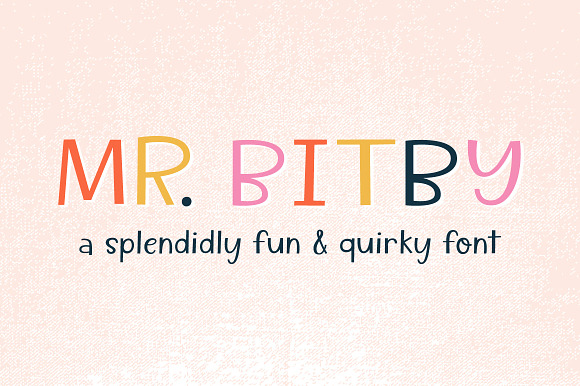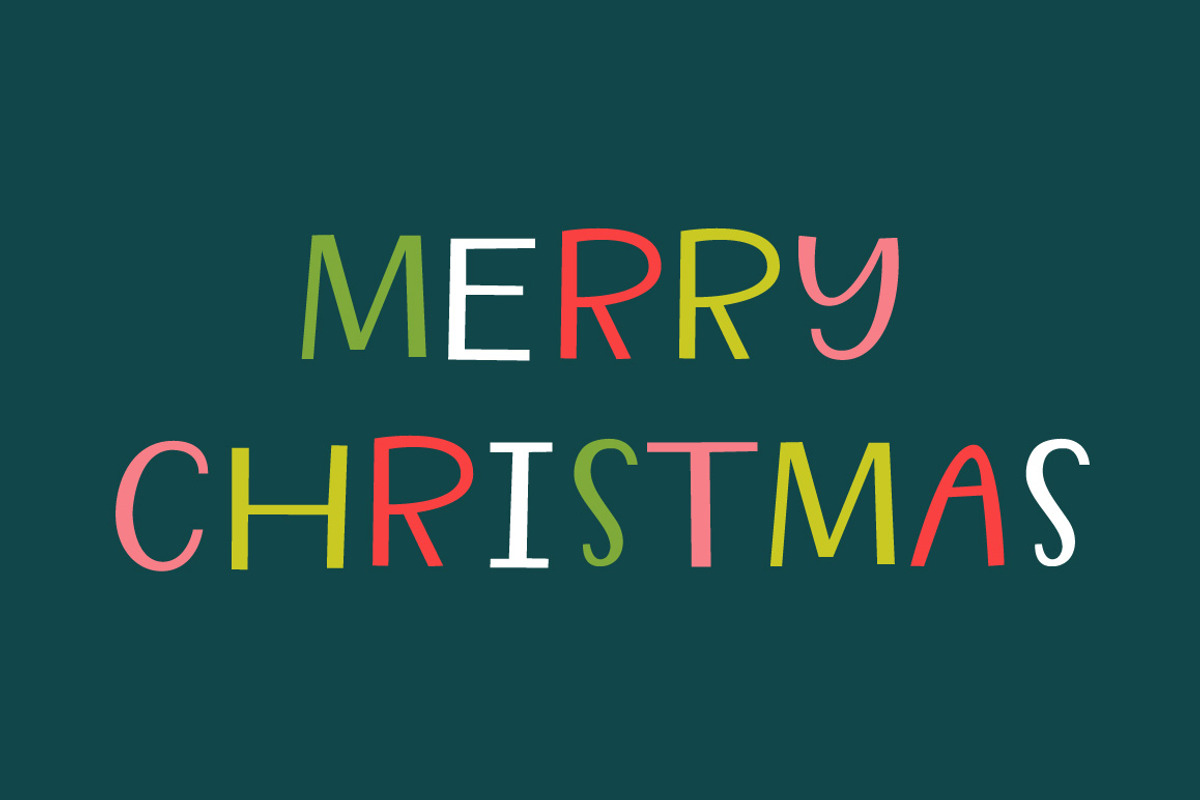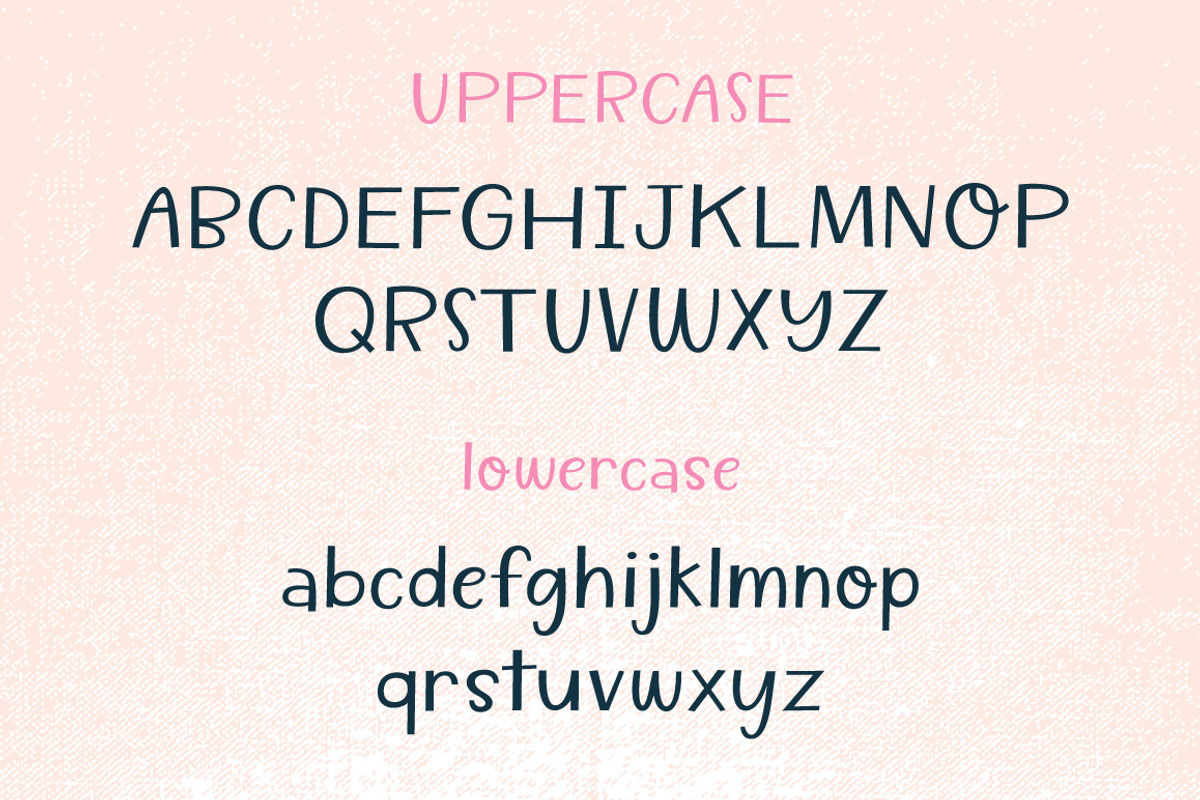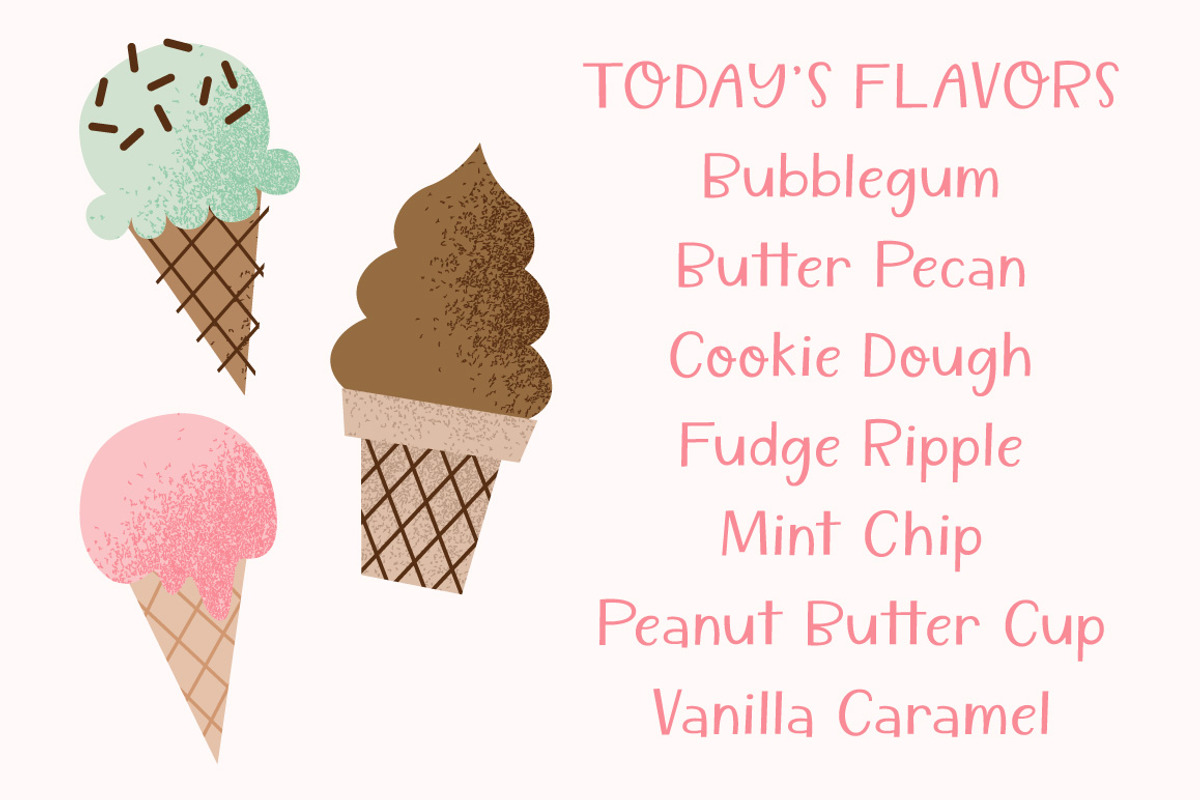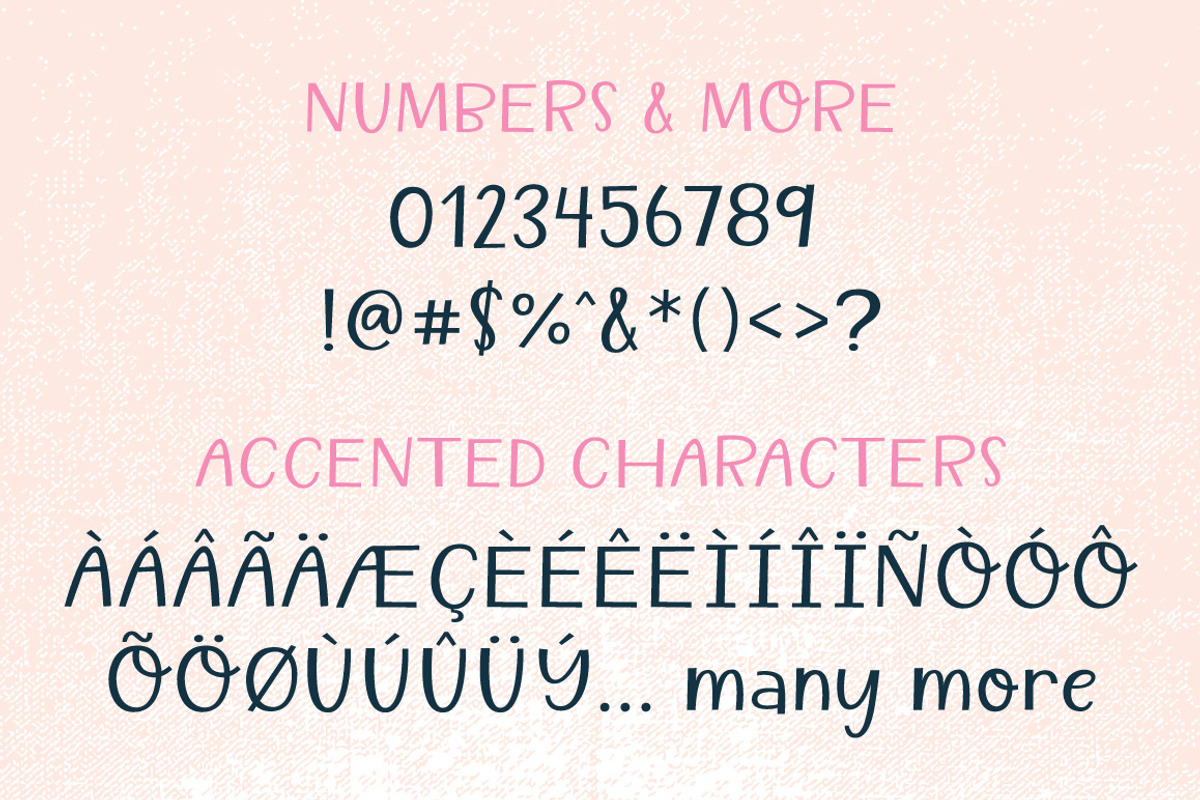
Mr. Bitby - A Quirky Font
Mr. Bitby is a splendidly fun and quirky fellow who is right at home on greeting cards, invitations, stationery, wall art, home goods, and clothing that has a fun and quirky feel.
Mr. Bitby - A Quirky Font by k.becca fits naturally into Branding, posters, packaging, typography.